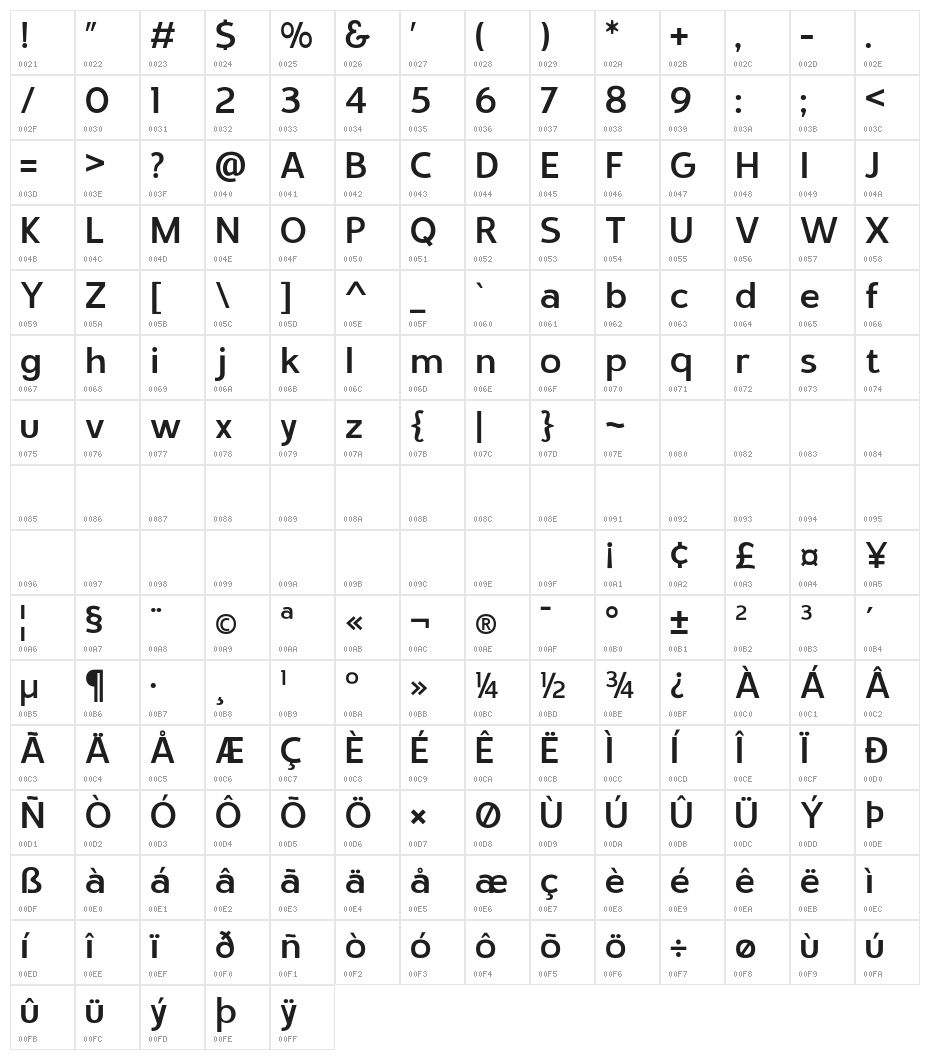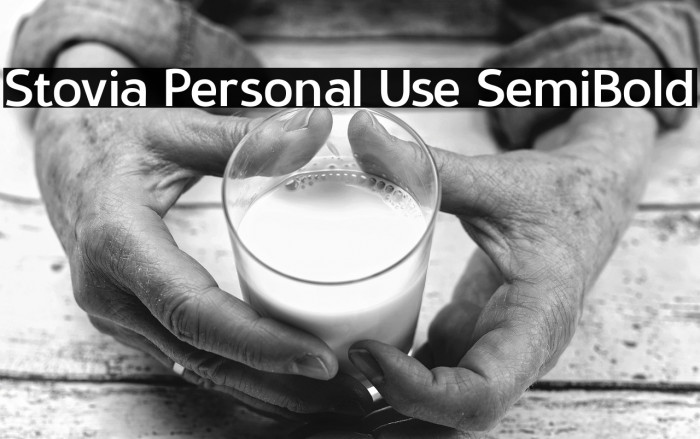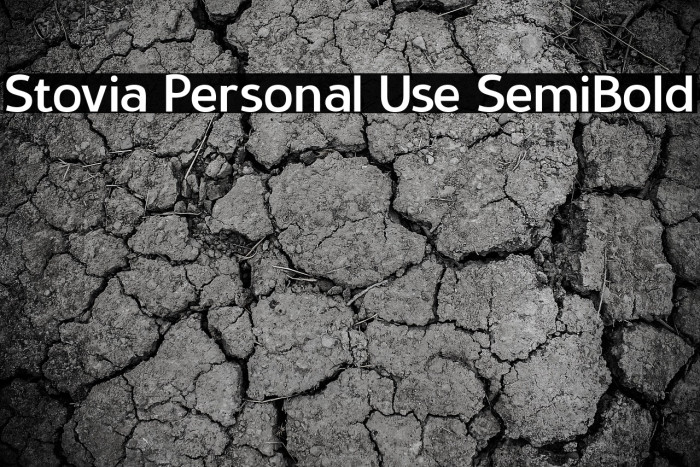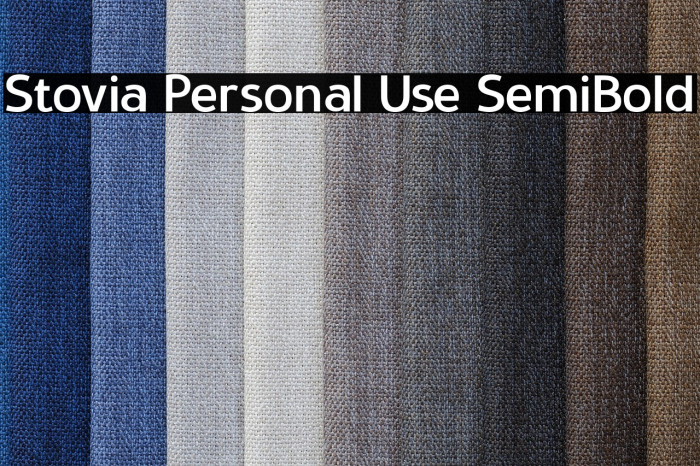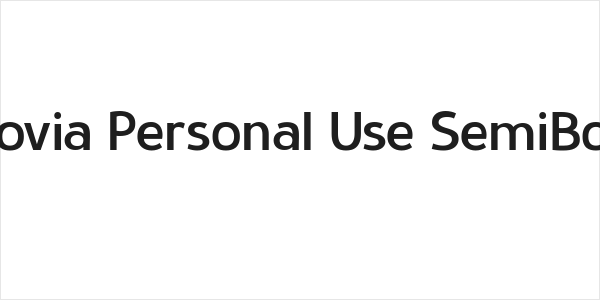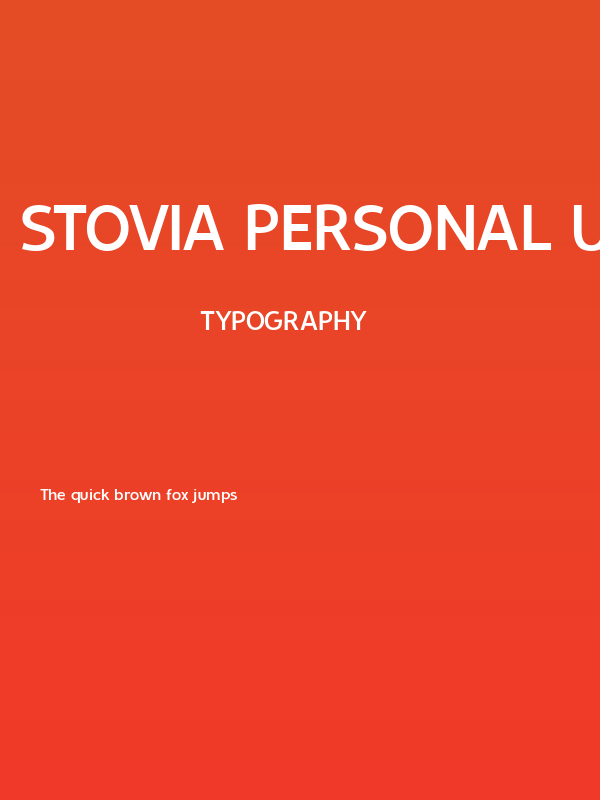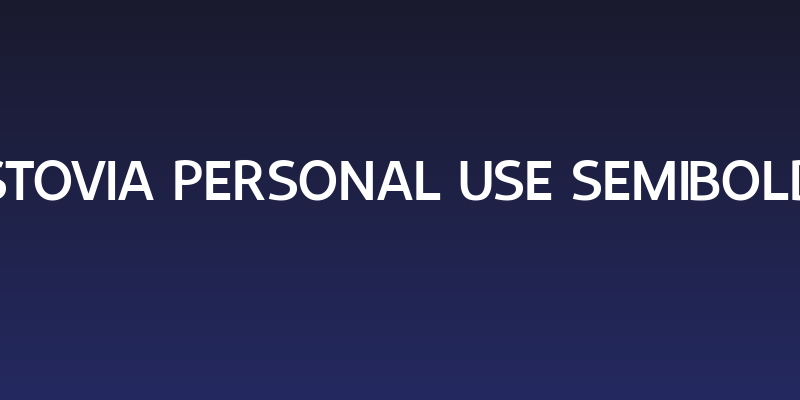
Stovia Personal Use SemiBold Font
Stovia Personal Use SemiBold Description
This font features a clean and modern sans-serif design with a semi-bold weight, offering a balanced and professional appearance. The characters are well-proportioned, with a consistent stroke width that provides a harmonious look. The uppercase letters are bold and assertive, while the lowercase letters maintain a friendly and approachable feel. The numerals are clear and easy to read, making them suitable for various applications. Special characters are included, enhancing the font's versatility. The overall design is sleek and contemporary, making it ideal for both digital and print media.
| Proposed Projects | Ideal for branding, advertising, web design, and editorial projects where a modern and professional look is desired. |